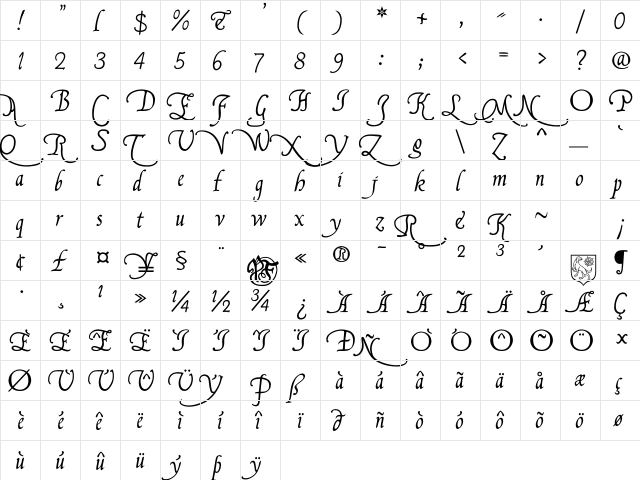
FranciscoLucas Briosa Regular
| Designer | Pia Frauss |
Design Context for FranciscoLucas Briosa Typeface
FranciscoLucas Briosa is a composed and adaptable typeface that performs quietly and consistently across a wide range of design contexts.